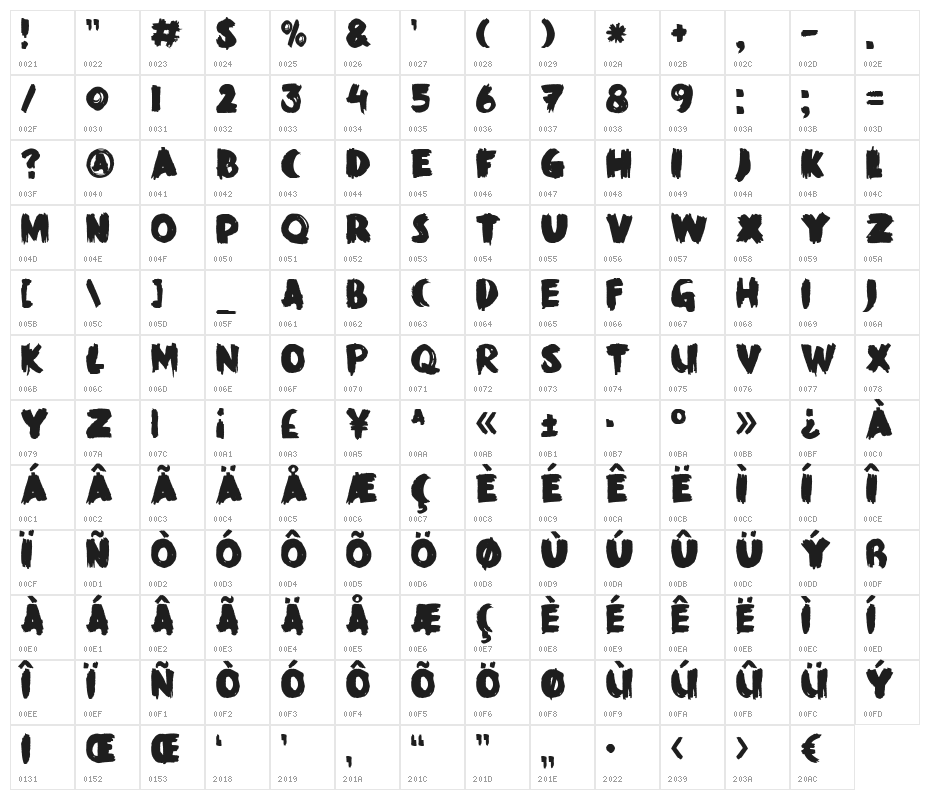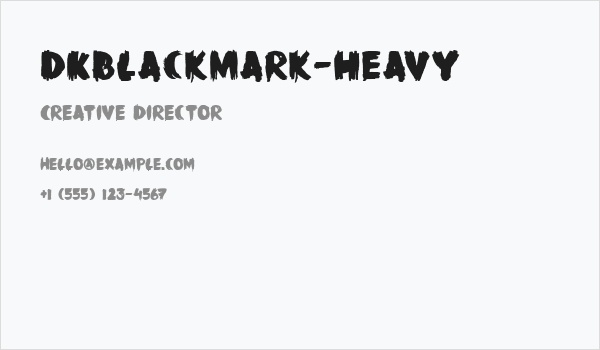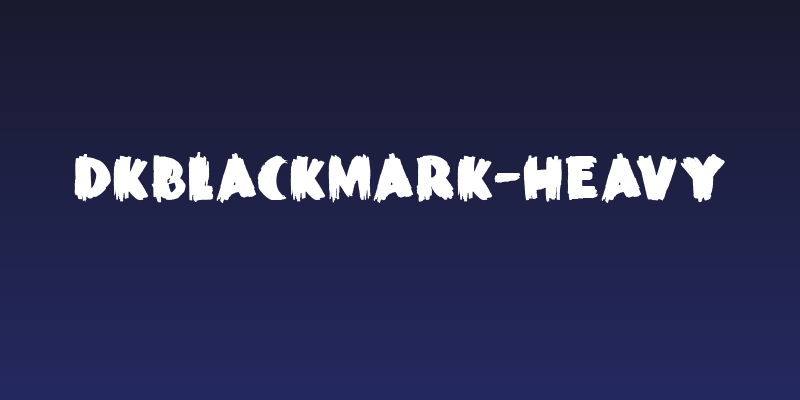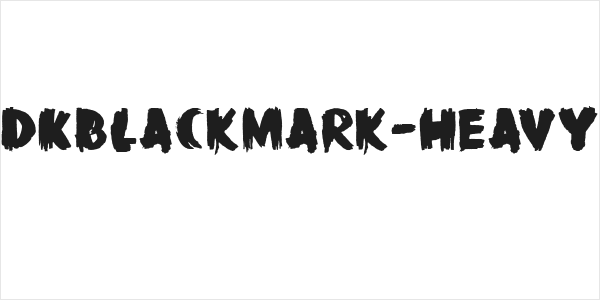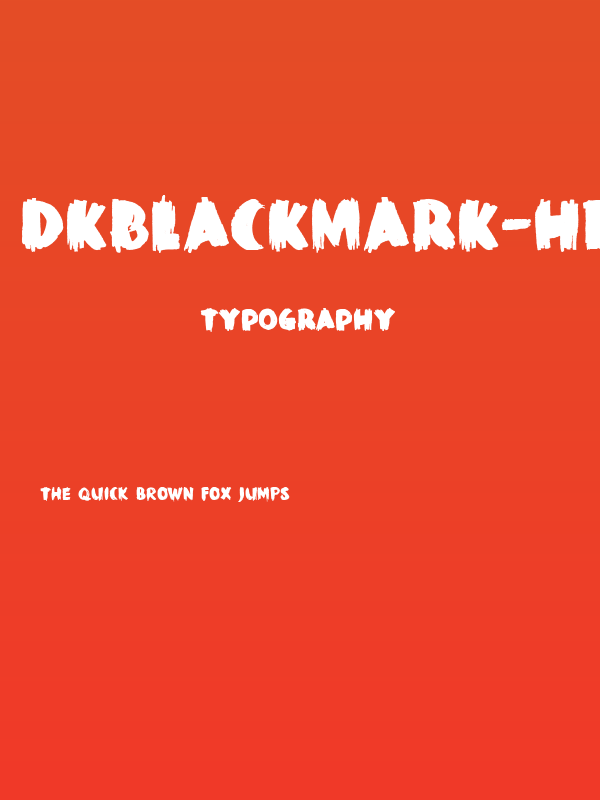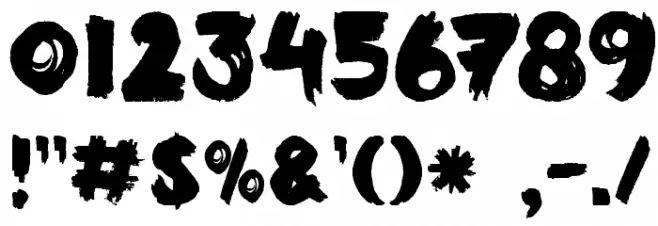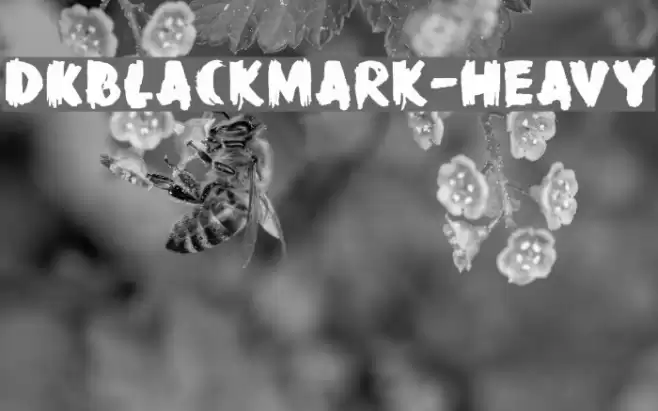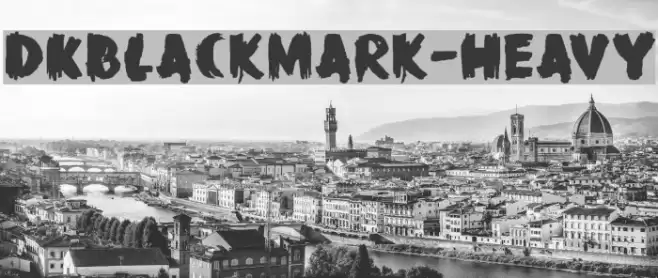
DKBlackMark-Heavy Font
This font features a bold and expressive style with a heavy, brush-like appearance. The characters are designed with irregular edges and a rough texture, giving them a dynamic and energetic feel. The uppercase and lowercase letters maintain a consistent weight, emphasizing their boldness. The numbers and special characters follow the same stylistic approach, ensuring uniformity across all glyphs. This font's unique design makes it stand out, capturing attention with its artistic flair.
| Proposed Projects | Ideal for posters, album covers, branding projects, and any design requiring a bold, artistic touch. |